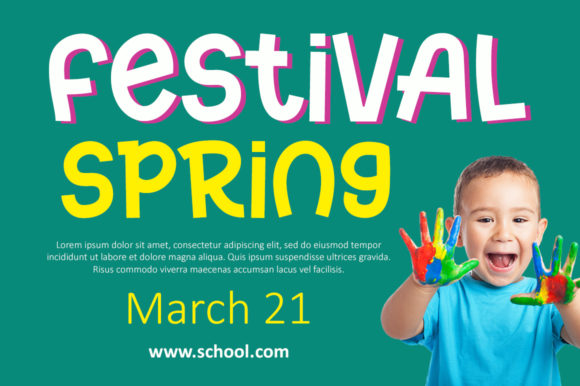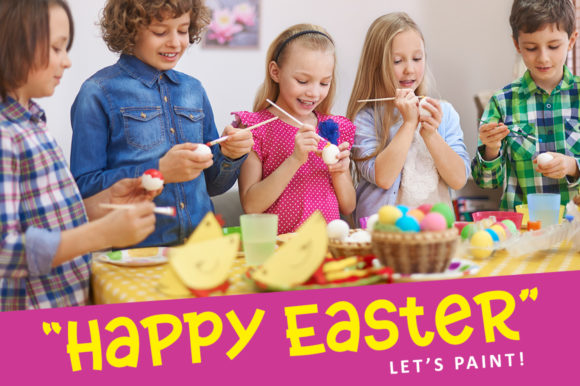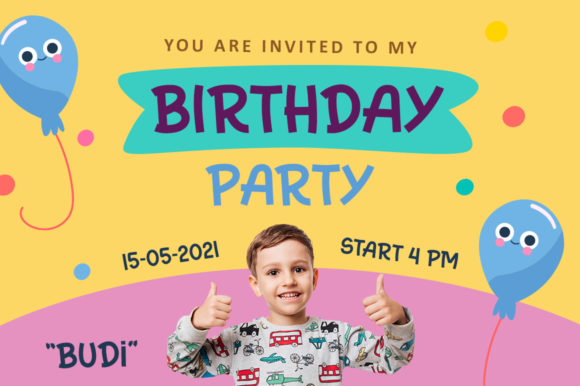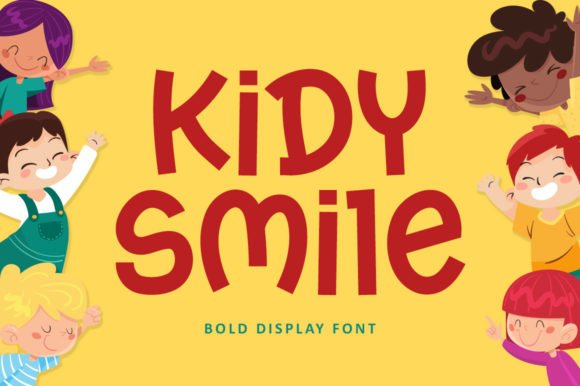
Introduction to Kidy Smile Font
Kidy SmileIt is a cute handwritten font.
It embodies playfulness and authenticity and is the perfect choice for any children activity or school project Add this chunky lettered font to your designs and notice how it makes them come alive.